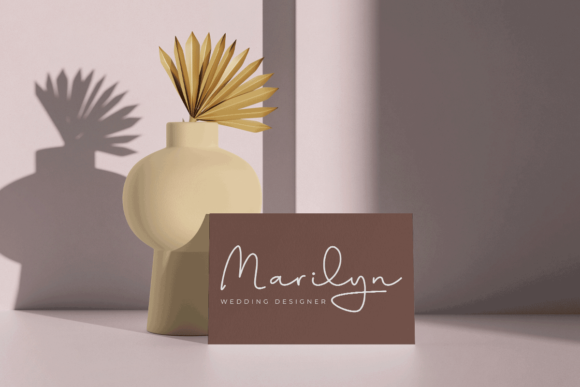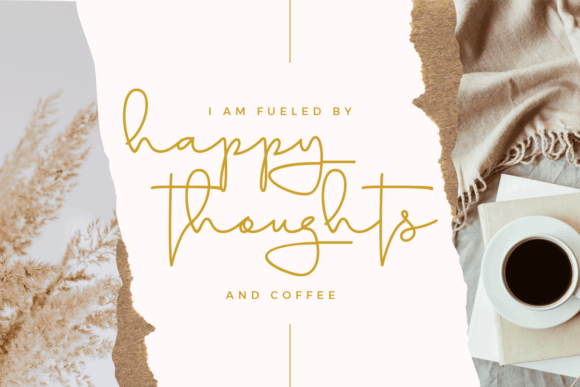
Aline Signature Font
db-ku.com - Script & Handwritten -- Aline Signature is a pretty script font. It is perfect for any design you wish to develop, such as quotes, greeting cards, business cards, wedding invitations, logos, lettering, t-shirt design materials and much more!